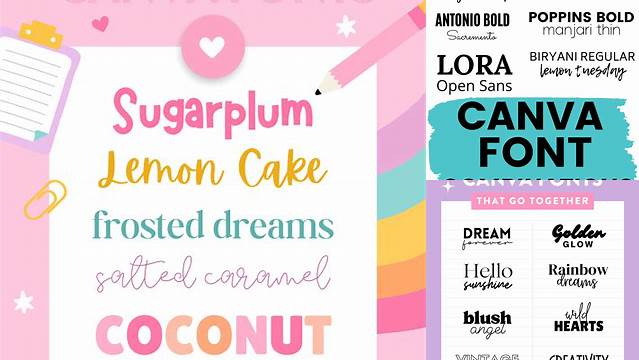
Captivating Canva Fonts For Stunning Banners
Hey everyone! Are you ready to level up your banner game? If you're anything like me, you're always on the hunt for that perfect font – the one that just clicks and makes your banner pop. Canva is a lifesaver, offering tons of options, but with so many fonts to choose from, where do you even begin? Don't sweat it! I'm here to walk you through some of the most cute Canva fonts for banners, along with tips and tricks to make your designs shine. We'll dive into different font styles, how to pair them, and how to ensure your banners grab attention. Let's get started and transform your designs from meh to magnificent!
H2: Discovering the Charm of Canva's Cute Fonts
Alright, let's talk about the heart of our mission: finding those adorable fonts! When you're designing a banner, you want something that's eye-catching, readable, and reflects your brand's personality. Cute Canva fonts for banners come in all shapes and sizes, from playful handwritten styles to clean, friendly sans-serifs. The key is to experiment and see what resonates with your audience. Think about the message you want to convey. Are you going for fun and whimsical? Or maybe clean and modern with a touch of flair? Canva's font library is your playground, offering a wide variety to suit any theme. Don't be afraid to explore! Start by browsing through the font options, taking note of the styles that catch your eye. Pay attention to how the fonts look in different sizes and on different backgrounds. Some fonts are better suited for headlines, while others work wonderfully for body text. The goal is to find fonts that not only look good individually but also create a cohesive and visually appealing design when combined. Mixing and matching fonts can be a fun way to add depth and interest to your banner, but it's important to choose fonts that complement each other. For instance, a bold, playful headline font might pair well with a cleaner, more understated body font. Keep your audience in mind, too. What kind of fonts will they find appealing? What fonts align with your brand's overall aesthetic? Ultimately, the best font is the one that fits your banner's purpose and personality. You can use filters on Canva to search specifically for cute fonts. Use keywords like "handwritten", "script", or "whimsical" to narrow your search. Once you find a font you like, don't just stick it on your banner and call it a day. Test it out! Try different sizes, colors, and effects to see how it looks. You might be surprised at how a simple adjustment can transform the look and feel of your design. Remember, a great banner is more than just pretty fonts. It's a combination of great fonts, thoughtful design, and a clear message. So have fun, get creative, and let your personality shine through.
H2: Top Handwritten Canva Fonts to Enhance Your Banners
Handwritten fonts bring a personal touch that can make your banners feel warm and inviting. They’re perfect for adding a touch of personality and charm. When it comes to cute Canva fonts for banners, handwritten styles are a fantastic choice for conveying a sense of authenticity and creativity. Think about banners for events, promotions, or anything that needs a friendly, approachable vibe. Handwritten fonts are often used to mimic a natural, human touch, making your banner instantly more relatable. Canva offers a variety of handwritten fonts, each with its own unique personality. You'll find fonts that are elegant and flowing, perfect for a touch of sophistication. You can also find fonts that are more playful and whimsical, great for adding a fun element. To make the most of handwritten fonts, consider how they interact with the other design elements in your banner. Pair a bold handwritten headline with a simpler sans-serif font for the body text to make the design easy to read and create visual harmony. Color also plays a crucial role. Handwritten fonts can look amazing when used with bright, cheerful colors. A soft pastel background can enhance the charm of the handwriting font. Think about the emotions you want to evoke. Does your banner need to feel friendly, inviting, or even a bit quirky? Handwritten fonts are great for all of these. Make sure that the handwritten font is legible, even at smaller sizes. Not all handwritten fonts are created equal, so make sure the font you choose is clear and easy to read, especially if you're using it for important information. Also, don't overuse handwritten fonts. It can be tempting to go all-in, but it can sometimes make a design feel cluttered. Use the font for key headlines or elements to highlight specific parts of your banner. Another tip is to experiment with different effects. Canva lets you add shadows, outlines, and other effects to your text, which can make your handwritten fonts look even more stunning. It can make your fonts stand out from the background, increasing their visibility. So, dive into Canva's handwritten fonts and discover the perfect one to infuse your banners with charm and personality!
H3: Sweet Script Fonts for a Touch of Elegance
Script fonts are like a beautiful handwritten letter, bringing an air of elegance and sophistication to any banner. They add a touch of grace and are perfect for creating a high-end feel. If you're looking for cute Canva fonts for banners with a touch of elegance, script fonts are a great choice. They are especially effective for banners that promote events, products, or services with a luxurious or refined aesthetic. Canva’s script fonts offer a variety of styles, from flowing and intricate designs to more simple, modern versions. The key to using script fonts effectively is to choose the right one for the message you're trying to convey. For a romantic event, a flowing, calligraphic script font might be perfect. For a fashion promotion, a sleek and modern script font could be more appropriate. Ensure that your script font is legible. Because script fonts can be more detailed, it's important to choose a font that is easy to read. Make sure the size is large enough for people to see your message clearly. When using script fonts, consider how they will interact with other design elements. They pair well with clean sans-serif fonts for body text. This creates a good balance between the more detailed script font and a more readable text. Color is also an important factor. A script font can really pop when paired with a contrasting color. Using a light-colored script font on a dark background, or vice versa, can make the text stand out. Don't be afraid to experiment with different colors to see what looks best. Remember, script fonts work best for headlines or short phrases that you want to emphasize. Don’t use a script font for large blocks of text. To enhance the beauty of your script font, play with effects like shadows, outlines, and spacing. These can make your font even more eye-catching and professional. When using script fonts, consider the spacing between letters. Some script fonts have connected letters, so make sure the spacing looks natural and not too crowded. Script fonts are an excellent choice for banners when you want to add elegance and style.
H3: Playful Brush Fonts for a Whimsical Vibe
Brush fonts, with their textured strokes and artistic look, can bring a playful and artistic vibe to your banners. They are perfect for capturing attention and creating a fun atmosphere. If you're looking for cute Canva fonts for banners that are full of personality, brush fonts are a fantastic option. They have a unique, handcrafted look that can make your banners more creative and engaging. They are perfect for banners promoting events, products, or services that have a playful, artistic, or creative element. Canva has a wonderful selection of brush fonts, each with its own character. From bold and energetic styles to softer and more delicate ones, there's a brush font for nearly any design. When choosing a brush font, think about the tone and personality of your banner. Do you want to create a fun and vibrant vibe, or a more relaxed and artistic look? Your brush font should align with the overall feel of your banner. Just like with script fonts, readability is crucial. Ensure your brush font is easy to read. Some brush fonts can be a little difficult to read, so test them out at different sizes. Brush fonts pair well with simpler fonts for the body text. This contrast can make your headlines pop and balance out the design. Color can also play a huge role in the impact of your brush font. A brush font in a vibrant color will stand out and capture attention, while a more muted color can create a more sophisticated, artistic effect. Consider how color can contribute to your banner's theme and message. Don't hesitate to experiment with different colors and effects to find what works best. Canva offers options like adding shadows or outlines to brush fonts, which can increase their visibility and make them more visually interesting. Brush fonts are great for headlines, slogans, and short phrases that you want to emphasize. You should also experiment with the placement of your brush font. It can create a striking visual impact. Brush fonts are a fantastic way to add personality to your banner. With the right choice and careful use, you can create banners that are fun, engaging, and memorable.
H2: Best Sans-Serif Fonts for Clear Banner Communication
For many banner designs, a clean and readable font is key. While cute and playful fonts have their place, sometimes you need something that's easy to read and delivers your message with clarity. When considering cute Canva fonts for banners, don't overlook the power of a well-chosen sans-serif font. These fonts, characterized by their lack of small lines (serifs) at the end of strokes, are the go-to choice for readability, especially at a distance. Sans-serif fonts offer a wide range of styles, from bold and modern to soft and friendly. Choosing the right one can significantly impact your banner's effectiveness. A great sans-serif font should be easy to read at various sizes, making sure that your message is clear. It is a good idea to test the font at different sizes. In banners, where people often have a quick glance, readability is everything. Look at how the font looks in bold, italics, and different weights. This will help you to make your text stands out and convey different types of emphasis. Consider the overall style of your banner. A clean, minimalist banner may look best with a simple, modern sans-serif font, while a more playful banner might use a font that's a bit softer and rounder. Pairing your sans-serif font with other fonts can add visual interest. Consider pairing a bold sans-serif headline with a thinner, more elegant sans-serif for body text. This approach can create a good balance and make your banner attractive. Use color to enhance the readability and impact of your sans-serif font. Colors that create contrast with the background are great, as is a light text on a dark background. The same is true in reverse! Think about how the colors will help your message stand out. Be mindful of spacing. Ensure your text has enough space between the letters and lines. This will make it easier to read. Some sans-serif fonts can work well with effects like shadows or outlines. Make sure to experiment to see what enhances the overall look of your banner. Sans-serif fonts are the workhorses of graphic design, ensuring your message is clear and easy to read. Selecting the correct one is the key to a successful banner.
H3: Modern and Minimalist Sans-Serif Options
For banners that embrace a modern aesthetic, minimalist sans-serif fonts are an excellent choice. They exude a clean, contemporary look that's perfect for conveying a sense of simplicity and sophistication. If you are looking for cute Canva fonts for banners but want a contemporary edge, minimalist sans-serif fonts should be your top consideration. They are perfect for banners that promote modern businesses, tech products, or events that focus on clean design. Canva has a wide array of minimalist sans-serif fonts. These fonts are often characterized by their sleek lines, simple forms, and lack of unnecessary details. The simplicity of these fonts makes them incredibly versatile and suitable for various design applications. The main benefit of using minimalist sans-serif fonts is readability. These fonts are designed to be clear and easy to read at various sizes, which is essential for banners. Think about your banner's color scheme. Minimalist fonts typically pair well with a limited color palette. A simple design with a few colors can amplify the clean aesthetic. Make sure that the font size is appropriate for the banner size and viewing distance. A font that is too small will not be seen clearly, while one that is too large can overwhelm the design. Combining minimalist sans-serif fonts with other design elements like negative space, simple graphics, and a limited color palette will help to enhance the overall minimalist look. Pay attention to the spacing between letters and lines. Sufficient spacing can enhance readability. Avoid overcrowding your text, as this can make the banner look cluttered. Use effects like bolding or different weights to add emphasis, but avoid using too many different styles as this can make the design confusing. With the correct use and implementation, minimalist sans-serif fonts can create stunning banners that capture attention and reflect a clean and modern aesthetic. These are great for any banner, especially the ones meant to attract attention from an educated or upscale audience.
H3: Rounded Sans-Serif Fonts for a Friendly Vibe
Rounded sans-serif fonts bring a friendly and approachable feel to your banner. These fonts have soft curves and smooth lines, which can make your design more welcoming and approachable. If you are looking for cute Canva fonts for banners that create a friendly vibe, rounded sans-serif fonts are a must-try. They are perfect for banners targeting a younger audience, or those promoting services or products that want to feel approachable and friendly. Canva features many rounded sans-serif fonts, each with its own unique personality. These fonts are known for their smooth, rounded letterforms, which give them a gentle and inviting appearance. They are easy to read and visually appealing, making them great for headlines and body text. Consider your banner's overall theme and message. Rounded sans-serif fonts work well with bright colors, fun graphics, and a playful style. They help to create an atmosphere of positivity and warmth. A good tip is to pair rounded sans-serif fonts with other design elements that reinforce the friendly theme. Use illustrations, icons, and playful colors. This consistency can enhance the overall impact of your banner. Make sure the font is legible. Even though rounded fonts have soft forms, it’s important to make sure the font is easy to read, especially at larger sizes. If the font is not clear, consider making the text larger or choosing another font. Pay attention to the spacing between the letters. Good spacing will allow your message to stand out. These fonts work well in a variety of contexts. The key is to match the font to the tone you wish to create. Rounded fonts will help create a welcoming experience!
H2: Pairing Fonts: Creating Harmonious Banner Designs
Finding the right fonts is only half the battle! The real magic happens when you start to pair those fonts together, creating a visually appealing and balanced banner. As we continue to explore cute Canva fonts for banners, the art of font pairing is essential for creating an effective design. A good font pairing can elevate your banner from good to amazing. Pairing fonts can enhance readability, emphasize certain elements, and reflect your brand's personality. So, let's talk about the best methods to create the most attractive banners. First, understand the basics. Font pairing is all about combining different fonts to create a harmonious design. You want to consider the contrast between the fonts. A strong contrast can make your banner stand out. On the other hand, be cautious not to create too much contrast, as this can lead to a confusing visual experience. Make sure the fonts complement each other. Choose fonts that share similar characteristics. For example, pair a bold headline font with a simpler body font. Canva provides many options for pairing. When you find a font you like, you can also explore its related fonts within Canva to find options that may work well together. Start with one dominant font for your headlines and main messages, then choose a secondary font for body text or supporting information. The primary and secondary fonts should complement each other. Try to avoid using too many fonts. Using more than three different fonts can make your banner look cluttered. Consider using the same font family. Using different weights or styles of the same font can create a consistent look. Experiment and test various pairings to see what works best. See how the fonts look together in different sizes and colors. The best pairing is the one that aligns with your brand and message. Practice and experiment. Get comfortable with the process of font pairing to make sure your banners are always eye-catching and effective.
H3: Matching Headline and Body Fonts for Visual Harmony
Matching your headline and body fonts is the bedrock of good banner design. When you choose fonts that complement each other, you instantly create a more polished and professional look. If you're exploring cute Canva fonts for banners, understanding how to match your headline and body fonts is essential for visual harmony. The headline font will capture attention, and the body font ensures your message is easy to read. The aim is to make sure the banner is easy to read and visually appealing. To achieve this harmony, consider the characteristics of each font. The headline font should be distinctive and eye-catching, while the body font should be clear and easy to read. This contrast can help your message stand out while ensuring readability. Using fonts from the same family often works great. Use a bolder or more decorative style for the headline and a lighter, more readable style for the body. For a classic pairing, a bold sans-serif headline font with a clean sans-serif body font is always a safe bet. Contrast is important, but it shouldn’t clash. Ensure the fonts contrast enough to be distinct from each other. You want a visually interesting banner, but avoid creating a jarring or confusing experience. Consider the overall mood of your banner. The headline font should set the tone. The body font should be selected to reinforce the mood and message. It's a good idea to test different font combinations in different sizes and colors to ensure they work well together. Readability is also key. Your body font should be easily readable at the size you plan to use. Avoid pairing fonts that are too similar, as this can make your banner look dull. It's important to experiment with different pairings to see what works best for your design. Font pairing is an art, so have fun and be creative!
H3: Contrasting Font Styles for Emphasis and Impact
Using contrasting font styles is a surefire way to add emphasis and make your banner truly pop. By pairing different styles, you can draw attention to key elements and create a dynamic design. When focusing on cute Canva fonts for banners, embracing contrast can transform your designs from good to great. The purpose of contrasting font styles is to make the most important elements stand out. Contrast can be used to separate key messages, create visual interest, and enhance overall readability. The first step is to identify the most important elements in your banner. Then, use a contrasting font style to highlight them. For example, pair a bold, playful headline font with a clean, understated body font. This will make the headline more noticeable and the body text easier to read. Another strategy is to contrast font weights. Combine a bold font for headlines with a regular weight for body text. You can also consider using different font families. Pair a serif font for headlines with a sans-serif font for body text, or vice versa. Consider the overall visual effect you want to achieve. Contrast can be used to create a dynamic, eye-catching design or a more balanced, harmonious look. Ensure there is enough contrast to differentiate the elements. Avoid using fonts that are too similar, as this can make the banner look dull. A contrasting color palette can enhance the impact of contrasting font styles. For example, a bright headline font on a dark background can create a strong visual effect. Be sure to experiment with various combinations to see what works best for your banner. Contrasting font styles is a valuable technique that can help create more engaging and effective banners.
H2: Color Palettes and Font Selection: A Winning Combination
Color plays a huge role in the effectiveness of your fonts. The color you use will either make your fonts stand out or blend into the background. When it comes to selecting cute Canva fonts for banners, the right color palette can enhance the visual impact of your chosen fonts. The color of your text can enhance readability. You should always aim to ensure the text is easy to read against the background. Consider the colors in your design. Create contrast between your text and the background. Experiment with various color combinations to make sure the message is clear. Try using lighter text on a darker background or vice versa. Canva’s color palette tools are a game-changer for finding the right combinations. You can use Canva's color palette generator to create harmonious color schemes based on a single color or image. Another great tip is to use your brand colors. The color of your banner should match your brand. This consistency will reinforce your brand identity. Think about the emotions your banner should evoke. Choose colors that align with the tone and message. Warm colors such as red and yellow can evoke feelings of excitement and energy, while cool colors such as blue and green can create a sense of calm and trust. Don't be afraid to experiment with different colors. See how your fonts look in different colors. Canva provides lots of tools to help you visualize your color combinations. The right color palette can dramatically increase the effectiveness of your banner.
H3: Bright and Bold Colors for Playful Fonts
When using playful and cute Canva fonts for banners, bright and bold colors are your best friends. These colors can amplify the fun and energy of your design. They grab attention and reflect the personality of the font itself. If you're working with playful fonts, your color palette can be anything! If you are trying to make your banner stand out, the use of bright, bold colors is a great way to enhance the overall visual appeal. The effect is immediate. Use bold colors like red, yellow, and orange to add excitement. Use bright and bold colors to enhance the visibility of your fonts. Choose colors that contrast with the background to make your text pop. Using a dark background with bright text, or vice versa, is a simple way to grab attention. Bright colors should also match the theme of the banner. Consider if the color matches the purpose of your banner. For a children's event, bright colors and playful fonts are a natural fit. But, for something more sophisticated, it is best to use more muted colors. Canva has a wide range of color tools to explore different combinations. You can experiment with different colors and see what works best for your design. The power of bright and bold colors with playful fonts is undeniable. You can make your banners pop and create a memorable impression!
H3: Pastel Shades for Soft and Cute Designs
Pastel shades are perfect for creating soft, cute designs that evoke a sense of warmth and gentleness. When using cute Canva fonts for banners, pastel colors are a perfect choice for creating a friendly and approachable design. They work especially well with fonts that have a softer, more rounded aesthetic. These colors create a visual experience that is gentle and easy on the eyes. Pastels are perfect for creating a specific theme. These are great for banners promoting children’s events, or products aimed at a feminine audience. A good tip is to pair pastel shades with a light background to enhance the soft and airy feel. Avoid too many bright or bold colors. Canva’s tools allow you to choose from an array of pastel colors, and experiment with different combinations to find what complements your chosen fonts best. Consider the overall mood and message of your banner. Pastels can convey feelings of calmness, serenity, and creativity. Experiment with various colors and font combinations to find what fits your goal. Pastel shades and cute fonts create a sense of warmth and friendliness. This can draw in your target audience.
H2: Typography Tips for Effective Banner Design
Beyond font selection and color, there are other important typography tips that will help you make your banners look professional. When you're focusing on cute Canva fonts for banners, you will also need to consider typography rules to improve the overall design of your banner. These rules will help improve the visual appeal and readability of the text. Let's delve into some of the most important typography tips. First, make sure your text is readable. Choose fonts that are easy to read at a distance. Test your banner at the size it will be displayed and ensure that your message is clear. Don’t use too many fonts in your banner. Stick to a maximum of three fonts to maintain a cohesive look. When using more than one font, make sure they complement each other. Pay attention to the size of your text. The size should be appropriate for the type of information and the viewing distance. Use larger fonts for important information. Use line spacing to improve readability. Increase the space between lines, especially for large blocks of text. This will make the text easier to read and less cluttered. Pay attention to letter spacing. Adjust the space between letters. Too much space can make the text look disjointed. Pay attention to alignment. Align the text properly to create a clean, organized look. Use a grid to make sure everything is aligned correctly. Use negative space to create a balance between elements. It can help draw attention to important information. Proofread your text. Make sure there are no typos or grammatical errors. Ensure the text is clear. When you're creating your banner, remember that these small details can make a huge impact on the overall appearance of your banner.
H3: Enhancing Readability with Font Size and Spacing
When designing banners, ensuring the text is readable should be your top priority. The correct use of font size and spacing plays a crucial role in achieving this goal. When considering cute Canva fonts for banners, understanding the impact of font size and spacing is essential for making your banners easy to read. The correct size and spacing will ensure the message is clear. This will help your audience understand the message you are trying to convey. First, consider the font size. It should be large enough to be seen from the intended viewing distance. Test your banner by viewing it from a distance. Choose a font size that's easily readable without being too small. Use different sizes for different elements. The most important information should have the largest font size, and then scale down the size for less critical text. Using the right spacing between the letters is just as important. If the text is too crowded, it becomes difficult to read. If the spacing is too wide, the text will appear disjointed. Adjust the letter spacing so that each letter is easily distinguishable. Use line spacing to help the eye. Make sure there is enough space between lines of text so that the eye can move easily from one line to the next. A little extra space can greatly enhance readability. A good tip is to test your banner in different environments. View it on different devices. Take into account the different viewing conditions. The right font size and spacing are great. These will improve the legibility of your banner and make your message more effective.
H3: Strategic Use of White Space in Banner Design
Whitespace, also called negative space, is the empty space around elements in your banner. It's a crucial element for achieving a clean and visually appealing design. While using cute Canva fonts for banners, the strategic use of white space can make your banners look more professional. Using whitespace can greatly enhance the impact of your banners. It's the secret ingredient for creating a balanced and readable design. The primary function of whitespace is to reduce clutter and improve the overall visual impact. It provides breathing room for the design elements. This also allows them to stand out more effectively. Consider the overall layout of your banner. Whitespace helps you organize your elements. Use it to separate different elements and create a clear visual hierarchy. Whitespace should be used around your text, images, and other design elements. Make sure the text is not cramped. This will allow your audience to easily focus. Be mindful of how white space can influence how people perceive your brand. Too much whitespace can make your design feel minimal, but too little can make it feel cluttered. If you follow these tips, you will be able to maximize the impact of your designs. When designing your banner, remember that whitespace is not just empty space. It's an important design element that can greatly enhance your visual impact and ensure that your message resonates.
H2: Canva Font Resources and Inspiration
Canva is a great tool, but sometimes you might need a little extra help to get the creative juices flowing. Knowing where to go to find font resources and inspiration will make your design work even easier. As you are exploring cute Canva fonts for banners, knowing where to find resources and inspiration can greatly improve your creative work. Fortunately, there are lots of options available to help you on your design journey. You can go to Canva’s font library to explore all the available fonts. You can use keywords to sort through the various types. You can also search for specific font styles or names. Canva provides lots of tips and tricks to guide you through their various design capabilities. Canva is a great place to start your design journey. Explore the websites of font designers and foundries. You can also check sites like Google Fonts, where you can discover a vast selection of fonts. Websites such as Behance and Dribbble can inspire you to discover new designs. You can also get inspiration from other designers. You can look at how other people use fonts and typography. Social media is also a great place for inspiration. You can search on platforms such as Pinterest and Instagram to see how designers are using different fonts. Create mood boards to collect fonts and color palettes. It is a great way to get your creative work flowing. There are a lot of resources available to you. Explore and discover what works best for you! When you have a little inspiration, you will find your design work more successful.
H3: Canva's Font Library: Your Gateway to Cute Options
Canva's font library is your go-to resource for discovering a wide array of options. It is your portal to the world of cute Canva fonts for banners. The library is designed to make your search easy, so you can find the perfect fonts for any of your design needs. Canva's font library is a vast collection of fonts, that can satisfy any of your design needs. You can explore different font styles and choose ones that match your vision. Using Canva's search tool is the first step. You can use keywords to sort your font options. You can search by font type or name. You can easily narrow down your options. When you find a font that you like, you can explore its related fonts. This allows you to discover additional options and experiment with different combinations. Canva provides previews of each font to show you how they will look on your design. You can try different sizes, colors, and backgrounds to get a feel for how the font will look. Canva's font library offers a range of resources and guidance to support you in your design journey. You can search for the perfect fonts and elevate your work. You can take advantage of all that Canva offers. Explore, experiment, and have fun in the world of fonts!
H3: Inspiration from Online Design Communities
Online design communities are an amazing source of inspiration, and they provide the opportunity to learn from other designers. By participating in these groups, you can learn new skills and improve your designs. If you want to find cute Canva fonts for banners, online design communities can open up a world of creativity. These communities provide resources, share ideas, and support designers. Platforms such as Behance and Dribbble, showcase the work of designers from all over the world. You can see how other designers use fonts and typography. You can get new ideas for your own designs. You can gain new skills. Social media platforms such as Instagram and Pinterest have become hubs for design inspiration. You can search for specific fonts and hashtags to see how they're being used in different designs. You can also follow designers and create collections of designs. You can learn about current trends, as well as the latest design techniques. Participating in these communities lets you connect with fellow designers. You can also seek feedback on your work, and get new ideas for your own projects. Online design communities are a great place to improve and grow as a designer. Explore these communities, seek inspiration, and take your design skills to new levels!
H2: Troubleshooting Font Issues in Canva
Even with all these awesome fonts and resources, sometimes you might run into a few snags. It's important to understand how to troubleshoot any issues that come up when using the fonts you have chosen. When you're working with cute Canva fonts for banners, problems can sometimes arise. Knowing how to solve these problems can prevent disruptions to your design process. Let’s delve into some common issues and how to fix them. One of the most common issues is font availability. Not all fonts in the Canva library are available in all versions. Make sure your font is compatible with your license. If you are having trouble with a specific font, you should try a different one. Sometimes fonts appear distorted. This happens when the font is too small, or if the text is not rendering correctly. Try to use a different size or font. Check for any other effects that may be causing the distortion. Sometimes fonts do not appear correctly in your design. This may be due to incompatibility, or problems related to your device or software. If this happens, try to clear your cache, restart your browser, or update Canva. You may need to contact Canva support for more assistance. It is important to save your work regularly to prevent any loss. You should also back up your designs to safeguard your hard work. By understanding the problems and the solutions, you can ensure that you can keep designing without interruption.
H3: Resolving Font Display and Rendering Problems
Sometimes, fonts don't always appear the way you expect them to, which can be frustrating. But don't worry, there are usually some easy fixes for font display and rendering problems. When you're using cute Canva fonts for banners, problems with how the fonts display or render can hinder your design work. By learning how to resolve these issues, you can get your design back on track. Here's how you can solve any display problems. One of the most common problems is the font appearing distorted. The simplest solution is to adjust the font size. Experiment with different sizes to make sure the font is clear and readable. Make sure that the fonts are not too small or too large. It is also important to make sure you are using the correct version of your browser. Outdated browsers may have display problems. You may also have problems with the software. Make sure you have updated your Canva software. The cache is also important. Sometimes, font display problems can be caused by the browser’s cache. Clear your browser’s cache and cookies and see if that fixes the problem. Some devices or browsers may not support certain fonts. You may need to choose a different font, or contact Canva support for further help. Resolving font display problems can prevent further setbacks. You can ensure your banner looks as great as you envisioned.
H3: Dealing with Font Licensing and Availability Issues
Font licensing and availability can sometimes be a bit tricky. But understanding these issues will help ensure your banners are both legal and visually appealing. When designing cute Canva fonts for banners, it’s important to address the licensing. Some fonts are only for personal use, while others may have restrictions on commercial use. If you want to sell your banner, you’ll need a commercial license. Check the font’s license terms before using it in any commercial projects. Canva has a wide range of fonts. The availability of these fonts depends on your Canva subscription and the type of font. Make sure the font is available on the plan you have. You may encounter availability issues due to regional restrictions. Some fonts are available in certain countries. This may affect your access to the font. Make sure your chosen font is supported in your region. Font availability may change over time. Fonts can be removed from the library or their licensing terms may change. You should keep an eye out for updates. You should always have a backup plan. Choose other fonts that are available if the original font is unavailable. Checking for font licensing and availability can help you stay compliant. This will prevent any legal issues and keep your banner design on the right track. By following these tips, you can make sure the fonts you use are perfect.
H2: Conclusion: Unleashing Your Banner Design Potential
So, there you have it, guys! We've covered a lot of ground, from the best cute Canva fonts for banners to the strategies and tips to create truly amazing designs. I hope you're feeling inspired and ready to create some eye-catching banners! Remember, the best way to learn is to experiment. So dive into Canva, try out different fonts, and see what works for you. Don't be afraid to play around with colors, spacing, and different design elements. Every banner you design is a chance to grow and improve your design skills. Keep in mind that the key to success is to start and have fun. Have confidence and see what you can do! With some creativity, you will be able to create stunning banners! Don't be afraid to try new things, and your banner designs will stand out.